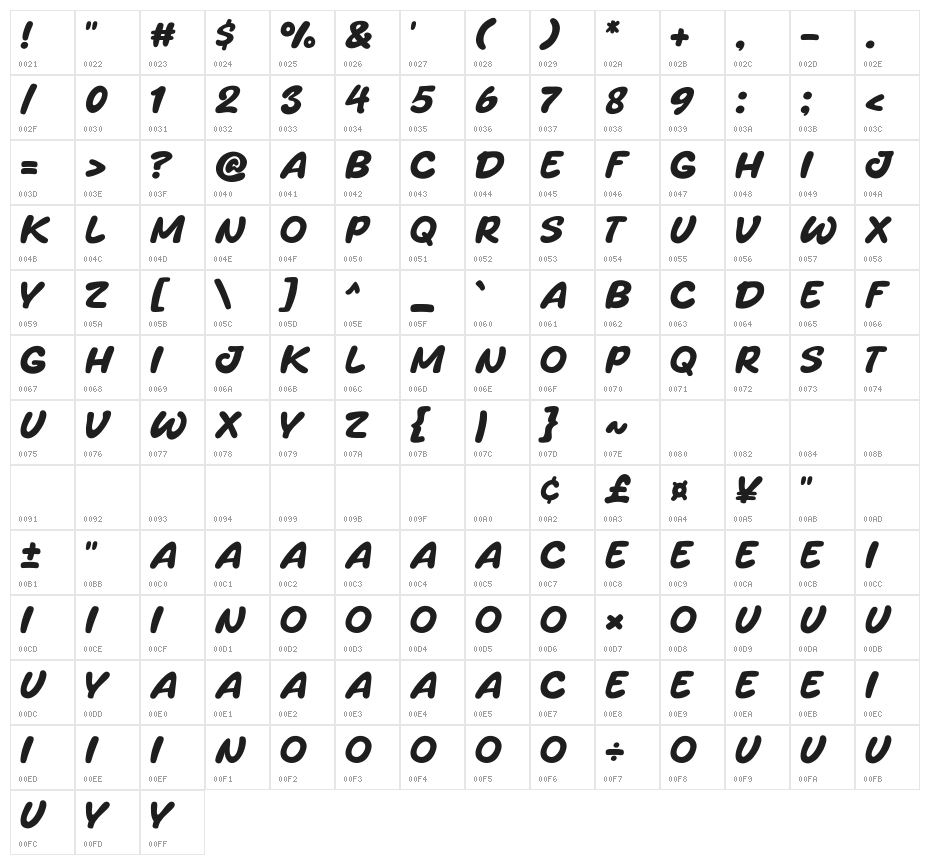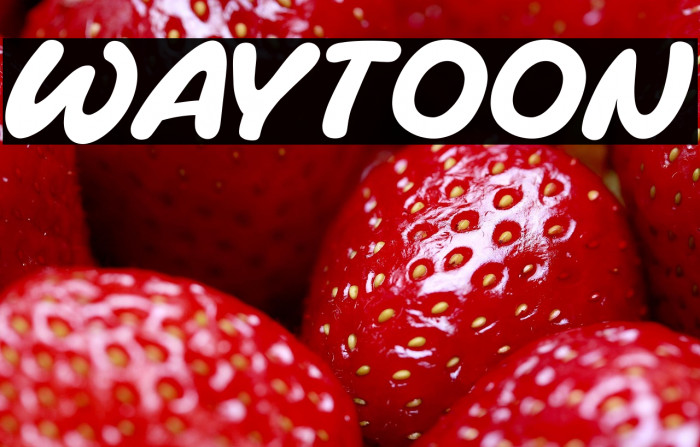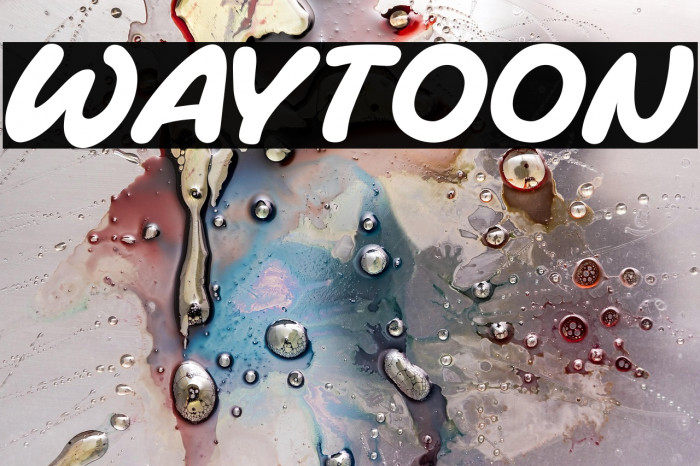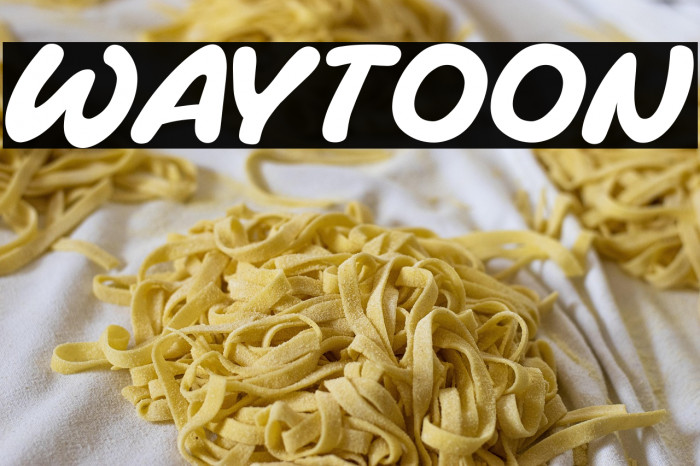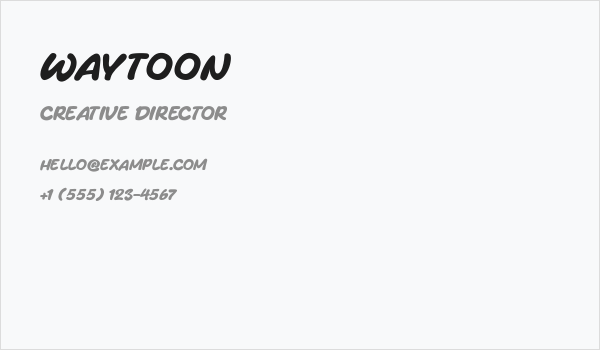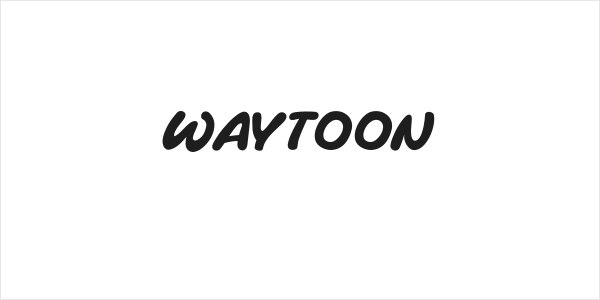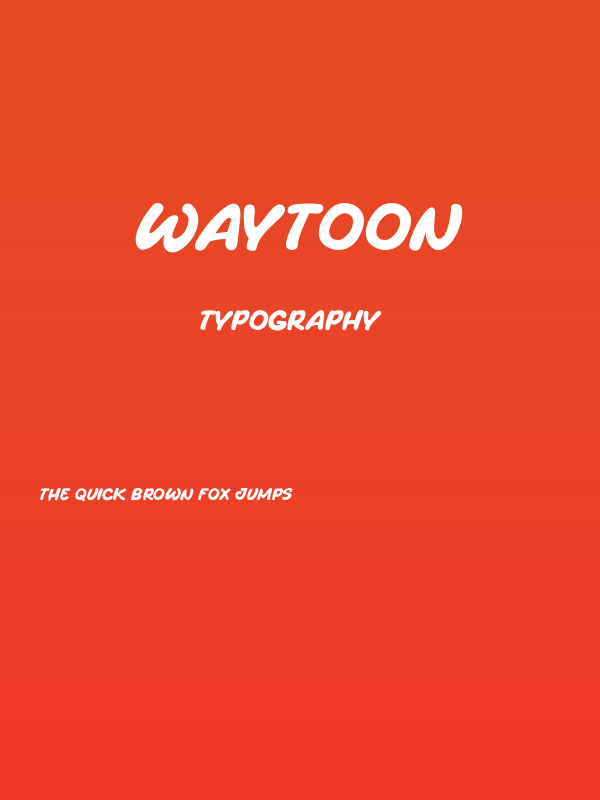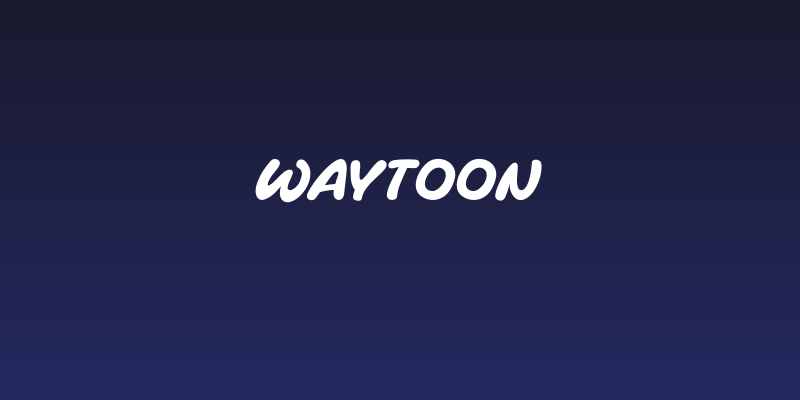
Waytoon Font
Waytoon Description
This font features a bold, playful style with rounded edges and a smooth, flowing appearance. The letters are slightly slanted, giving a sense of motion and energy. The uppercase and lowercase characters maintain a consistent weight, contributing to a cohesive look. The numerals and special characters are designed to match the overall style, ensuring uniformity across different uses. The font's boldness and rounded forms make it highly legible, even at smaller sizes, while its playful nature adds a touch of fun to any design.
| Overall Style | Playful, Energetic |
| Proposed Projects | Ideal for children's books, playful branding, casual invitations, and creative posters. |